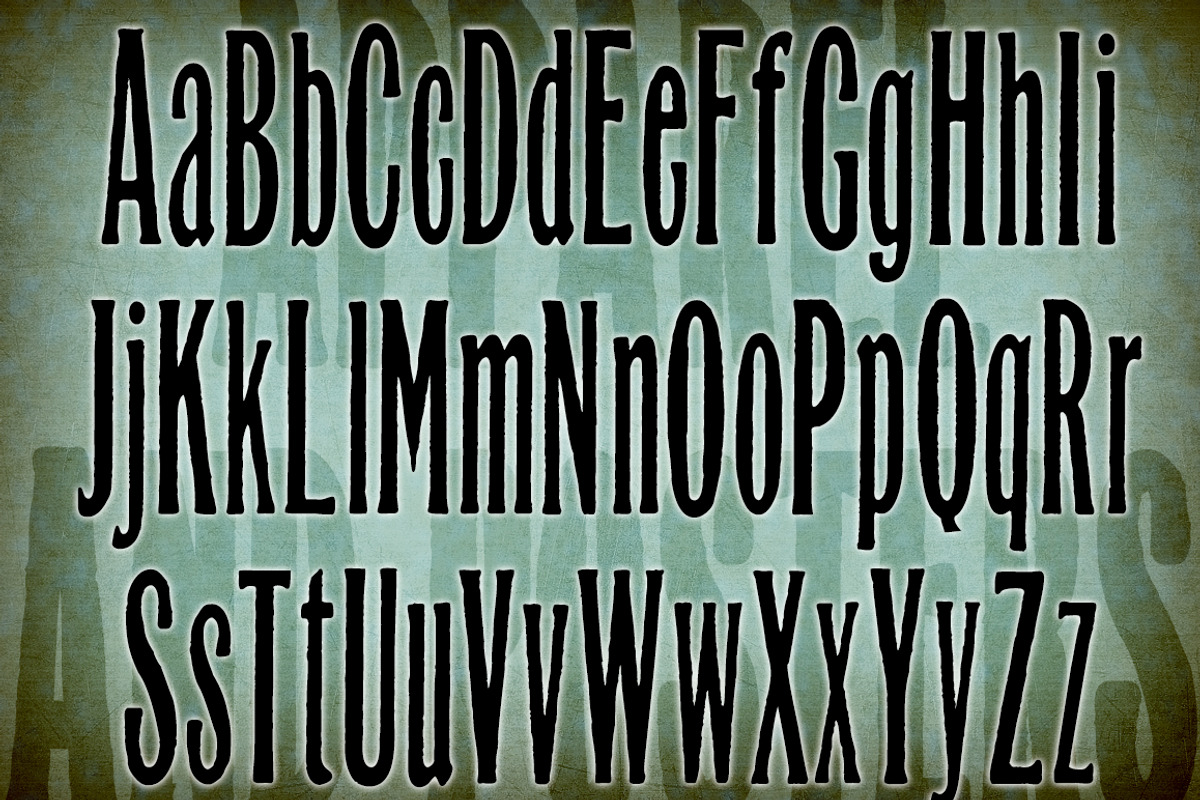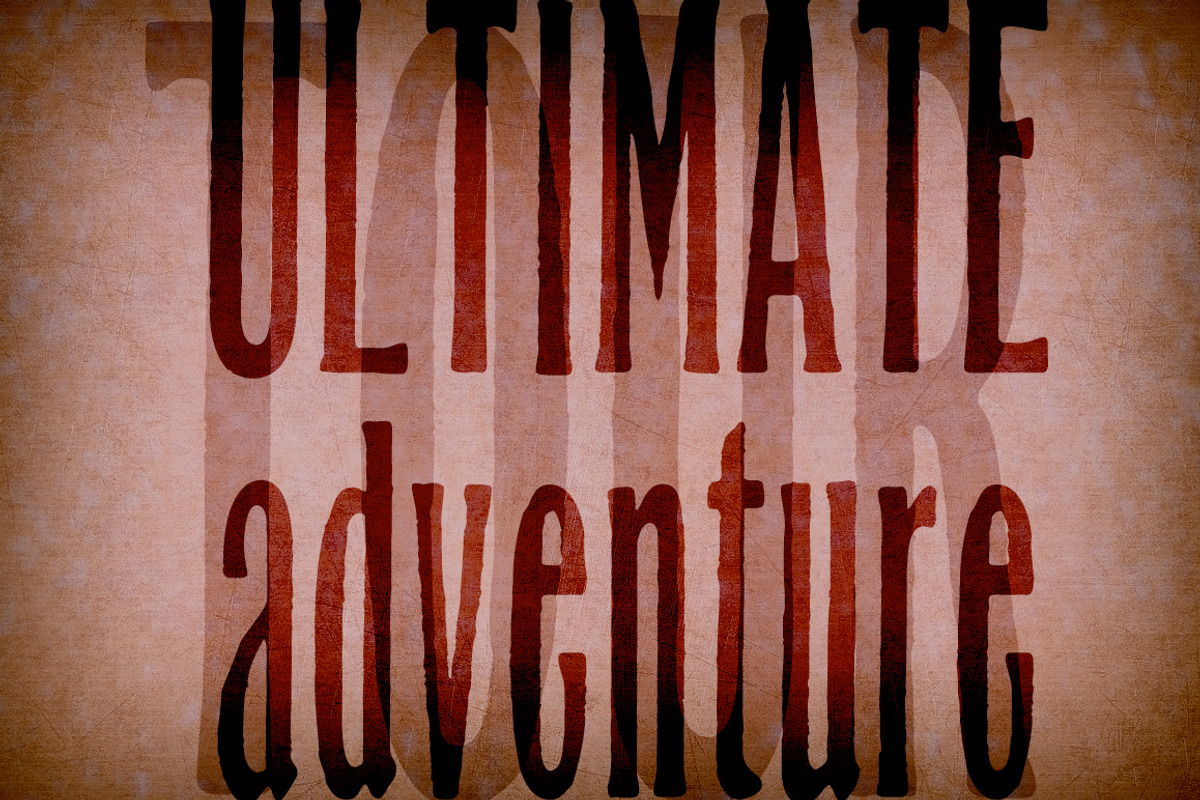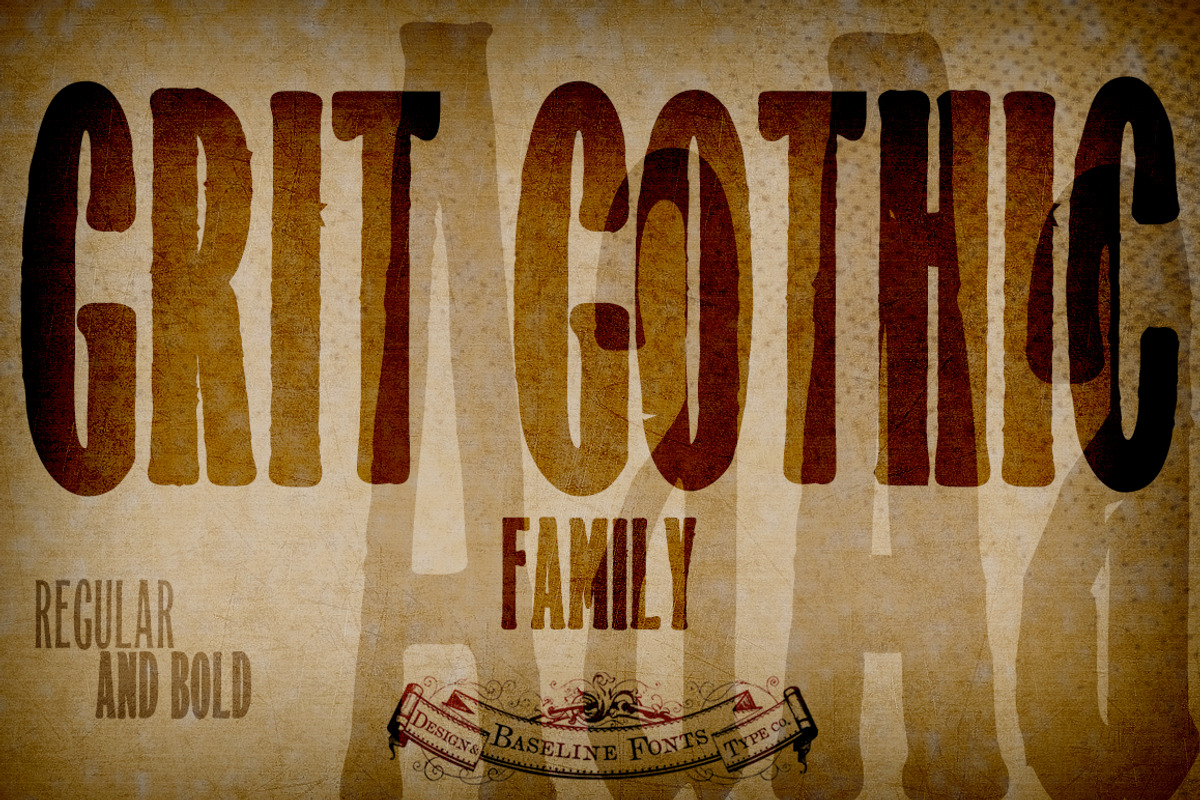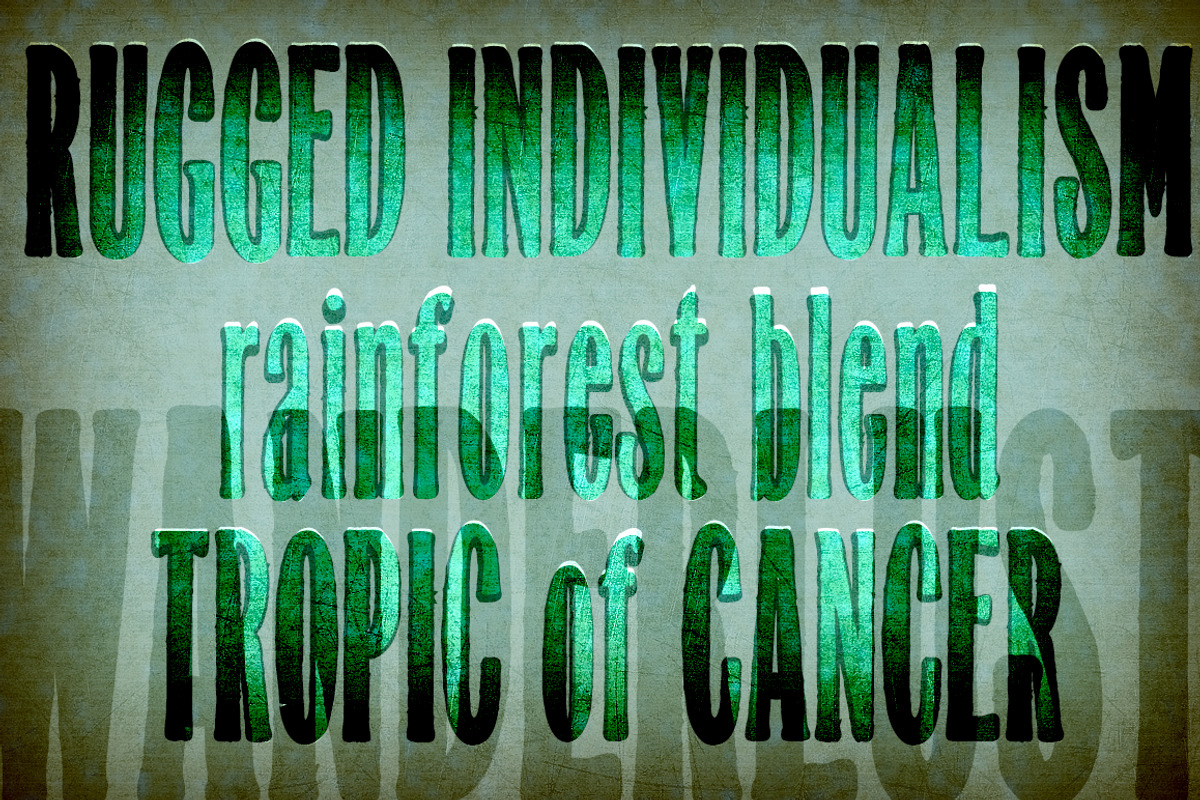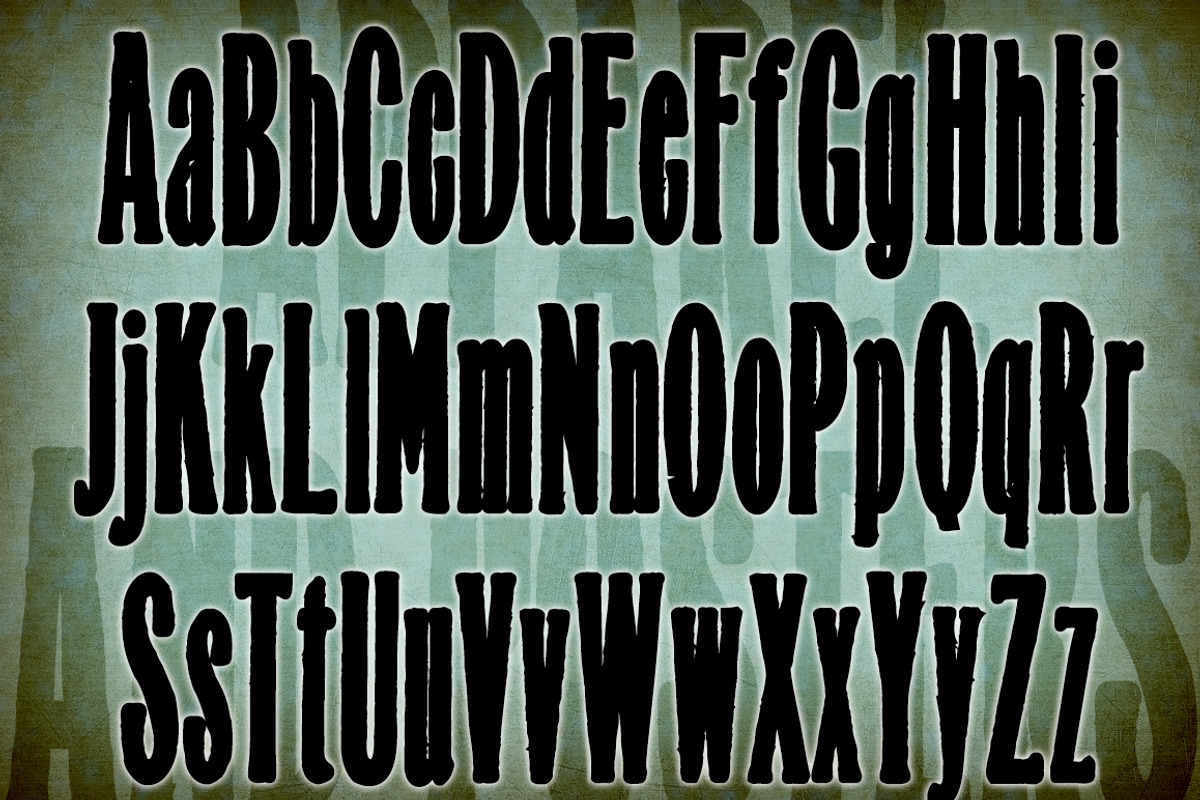
Grit Gothic™ Family
Grit Gothic™ Family by Baseline Fonts is a font selected for branding, posters, packaging, typography.
- Extended X heights create lowercases that adventurously reach up through extended shoulders and spines while persistent grunge warns of skin
- This font is rife with personality, including large and daunting punctuation, whittled wood-look vertical bars that berate and argue with be
- Grit Gothic Regular
- Grit Gothic Bold
Grit Gothic™ Family by Baseline Fonts fits naturally into Branding, posters, packaging, typography.